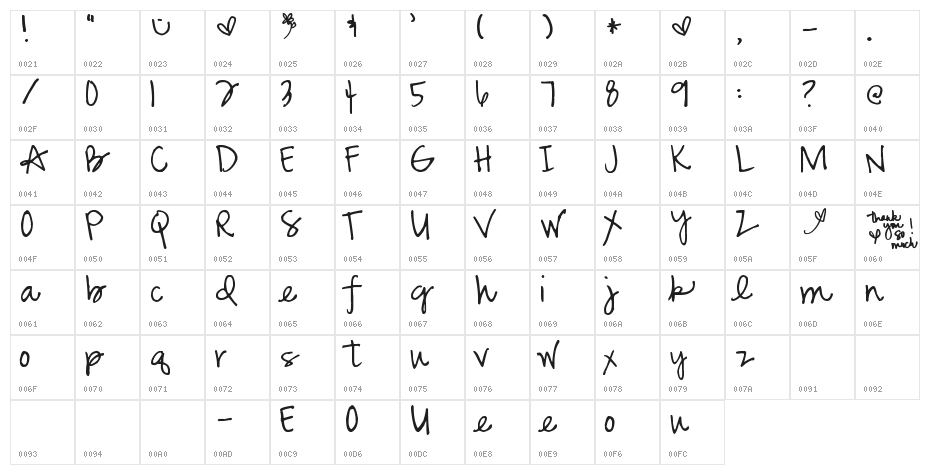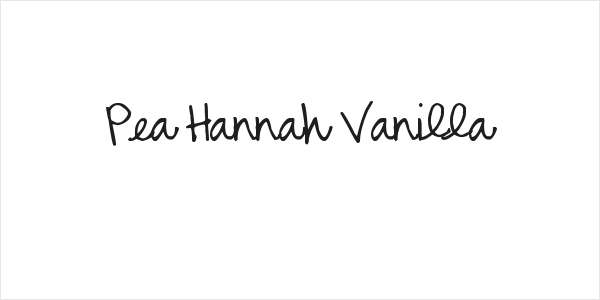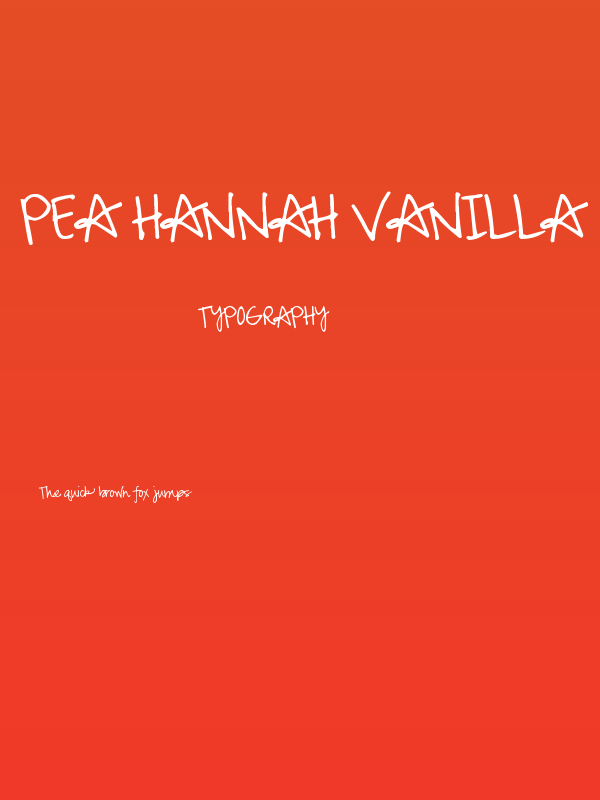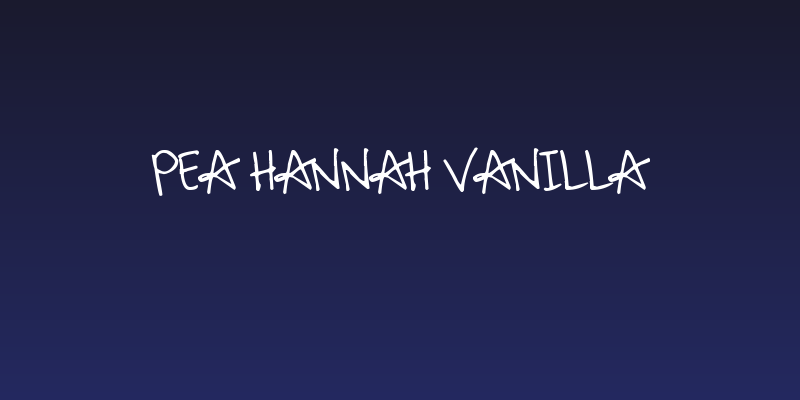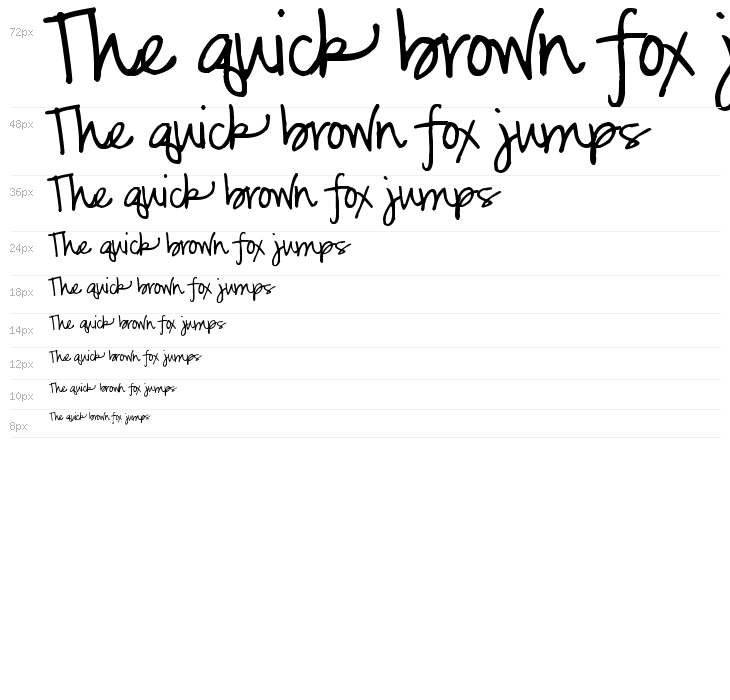
Pea Hannah Vanilla Font
Pea Hannah Vanilla Description
This font features a playful and casual handwritten style, characterized by its loose and flowing letterforms. The strokes are uneven, adding a personal and informal touch. The uppercase and lowercase letters are distinct, with a natural variation in height and width, giving it an authentic handwritten feel. The numbers and special characters maintain the same playful style, making it versatile for various creative projects. The overall appearance is friendly and approachable, suitable for designs that require a personal touch.
| Use Case | Logos, Invitations, Personal notes |
| Proposed Projects | Ideal for greeting cards, personal notes, invitations, and creative branding projects. |